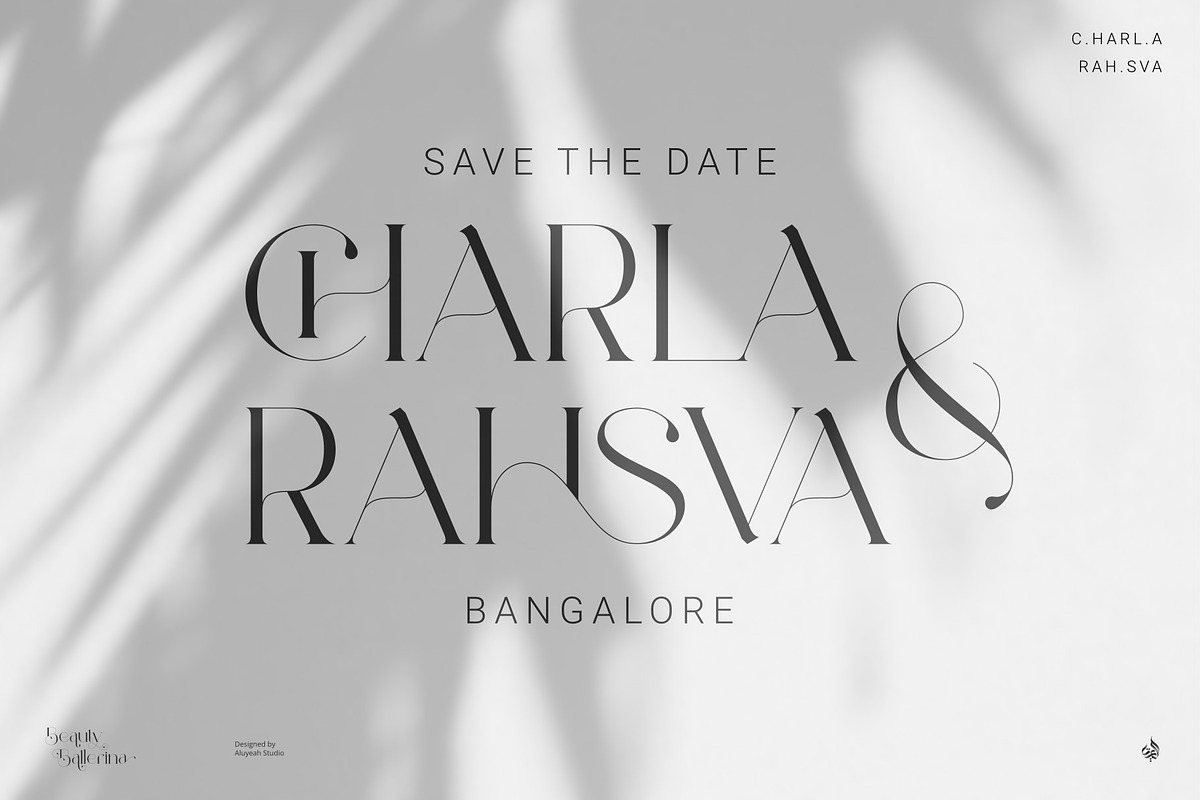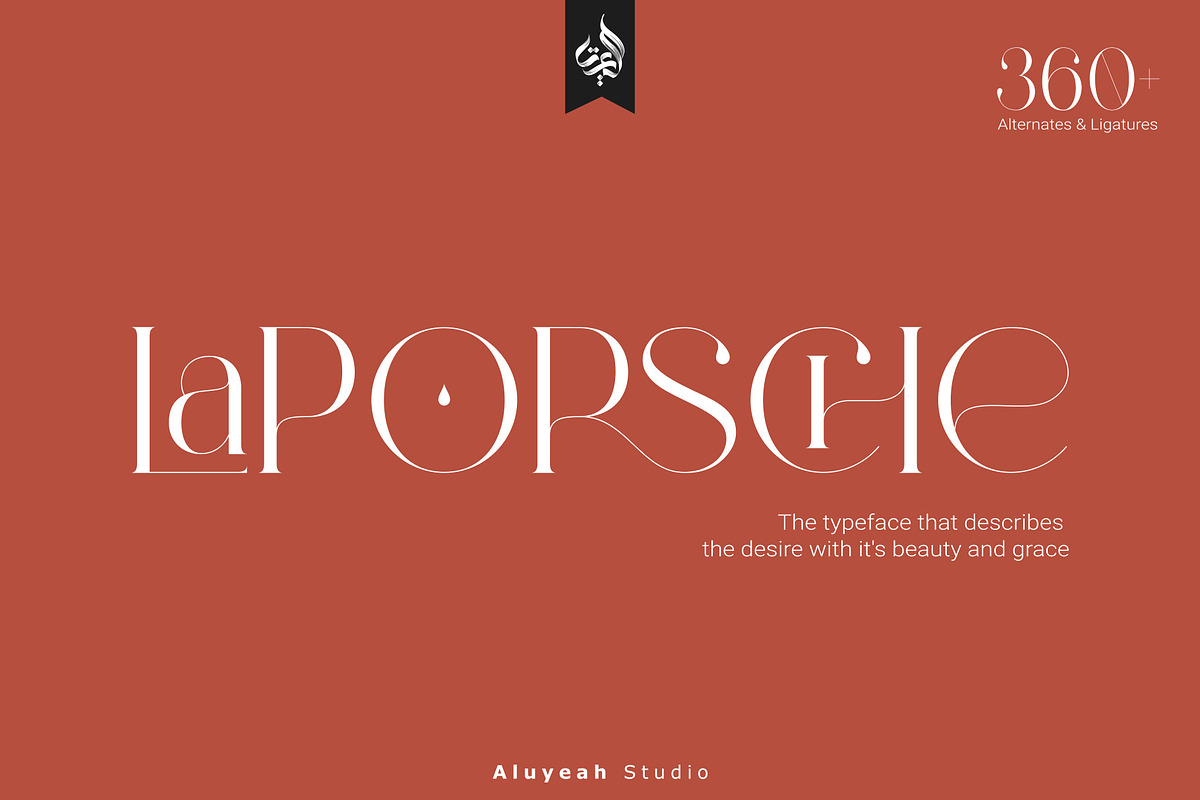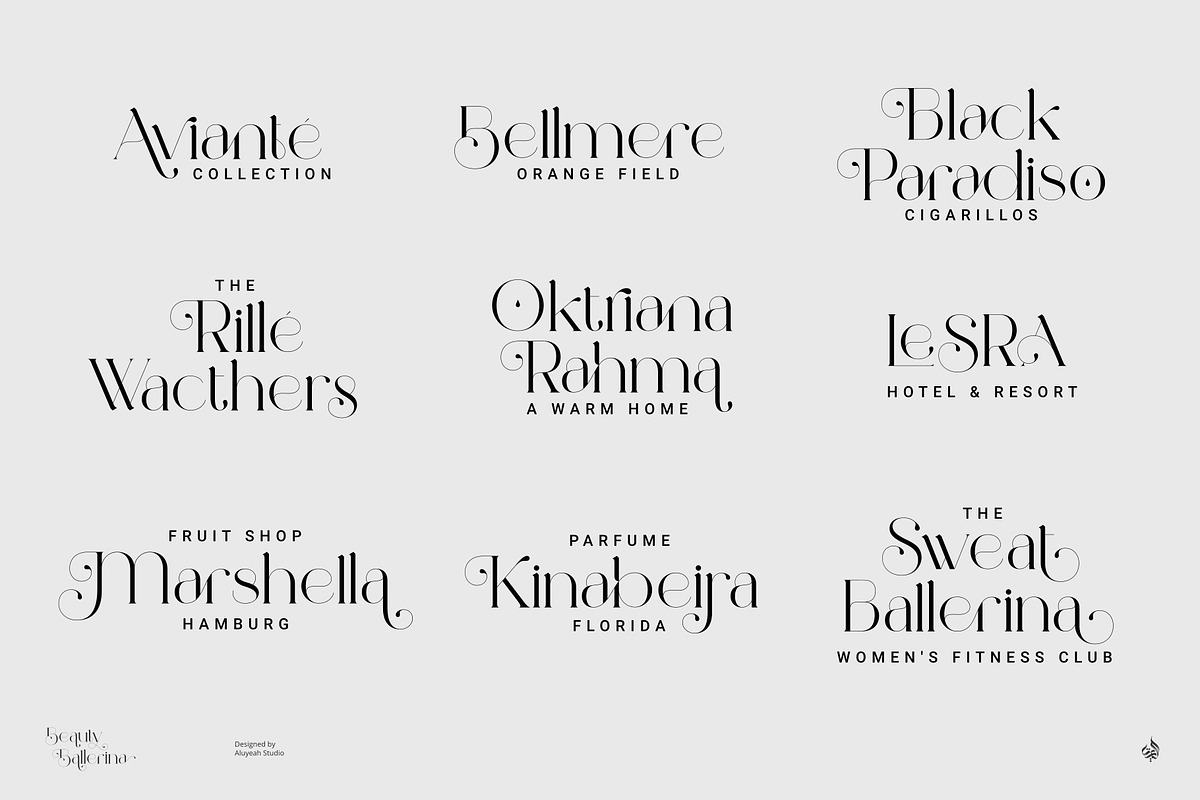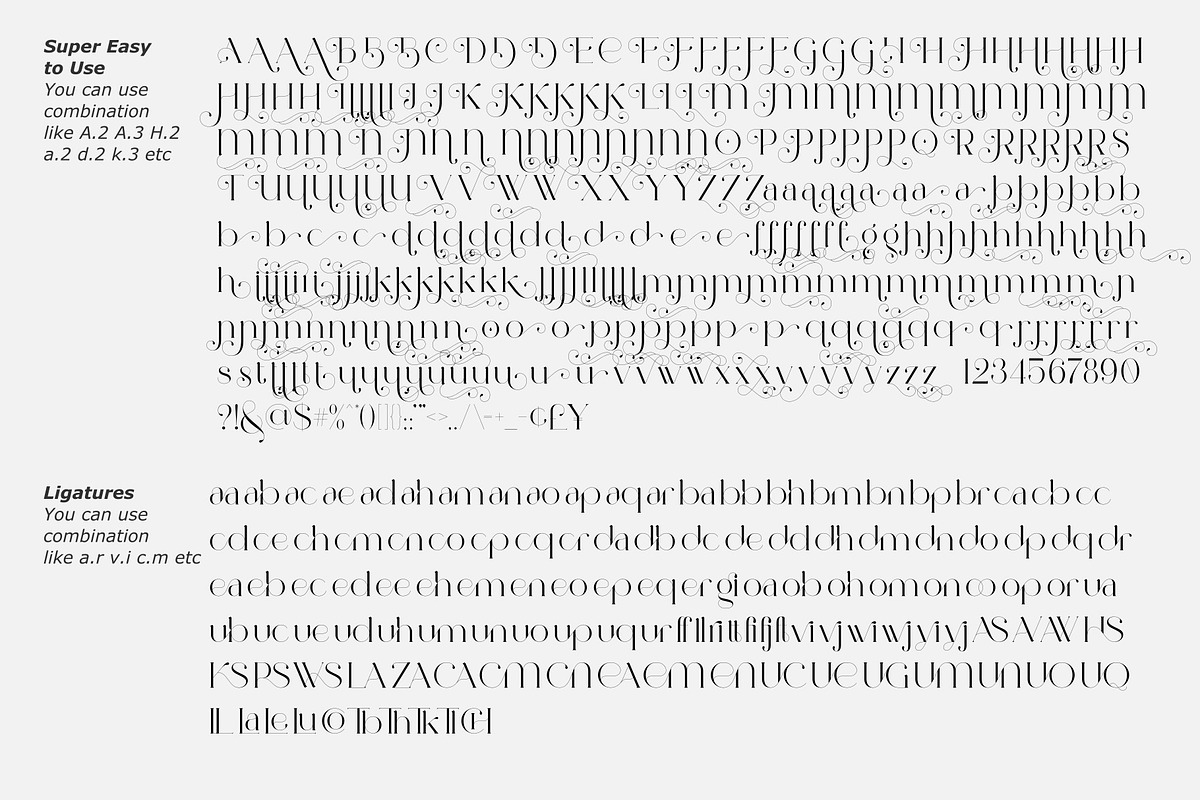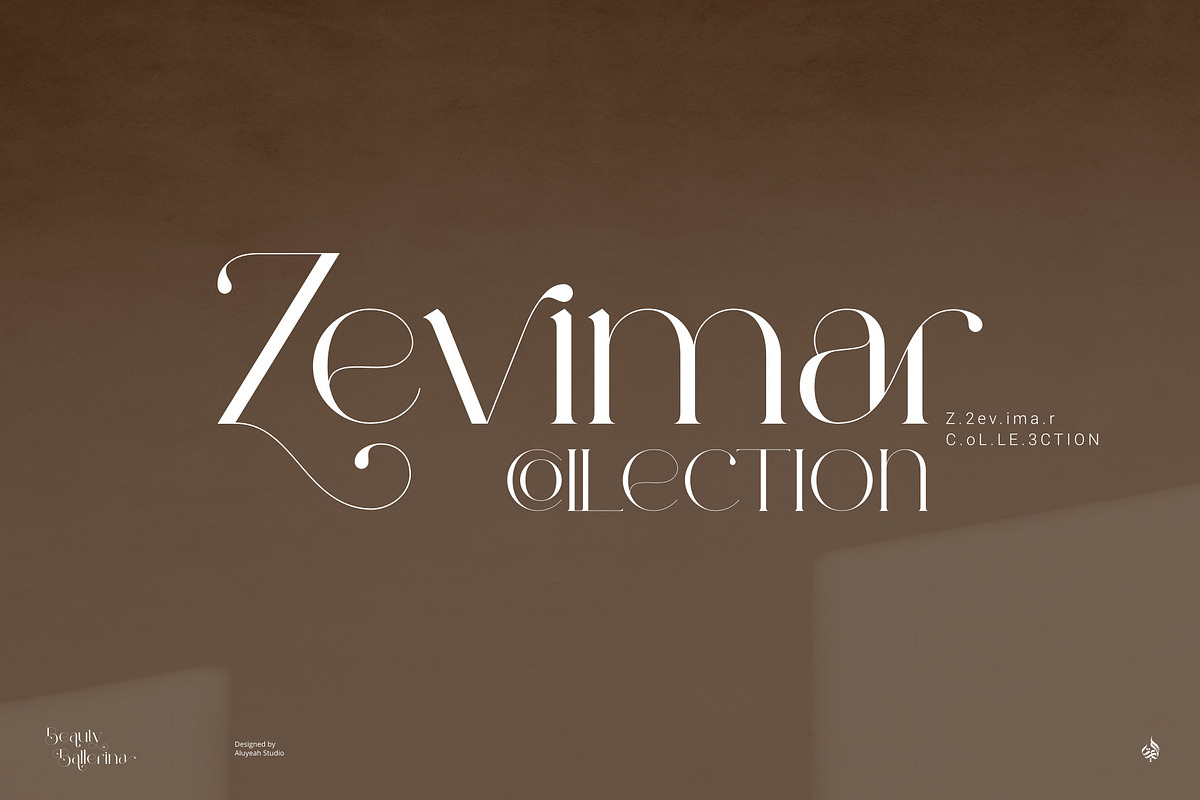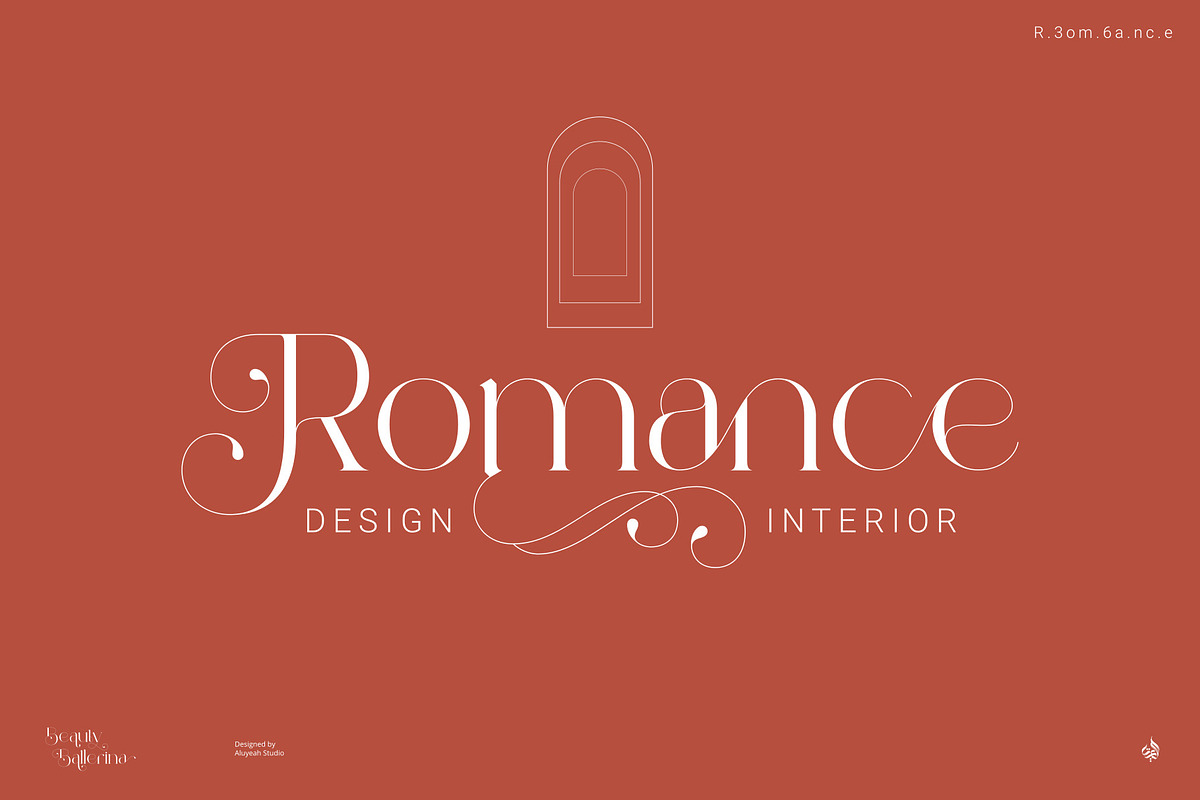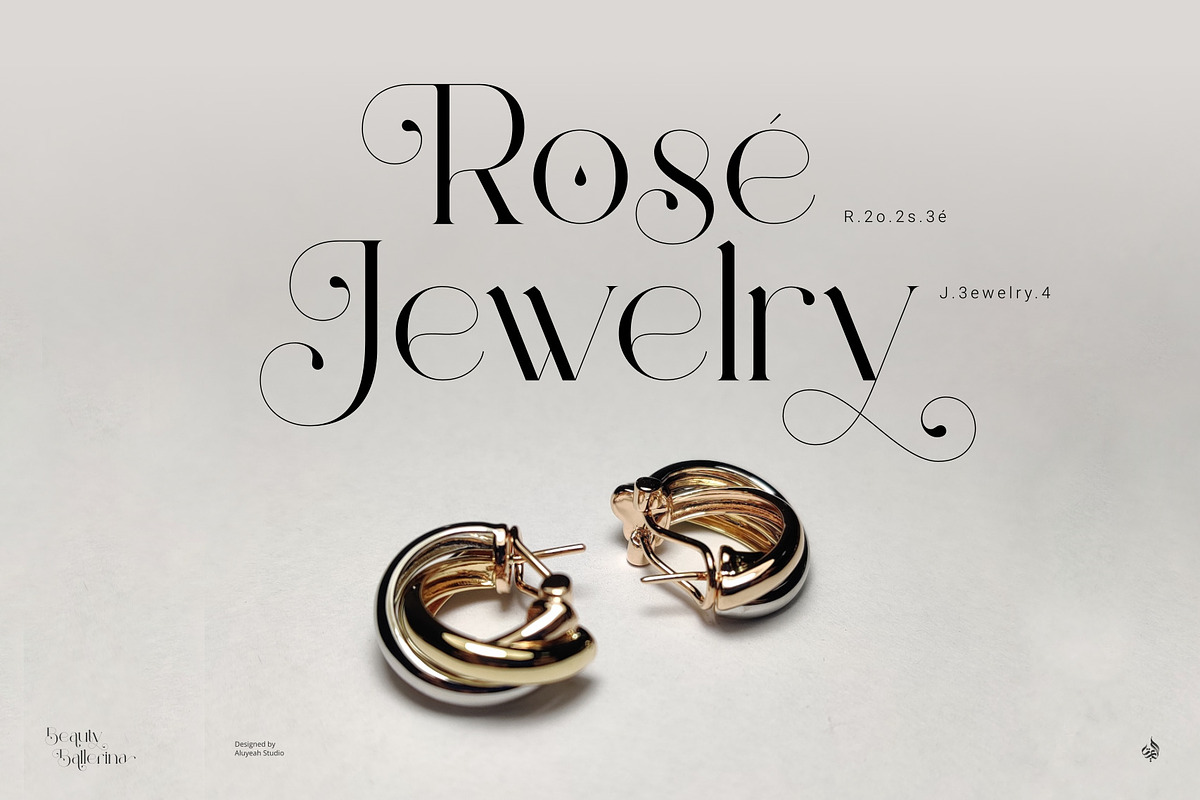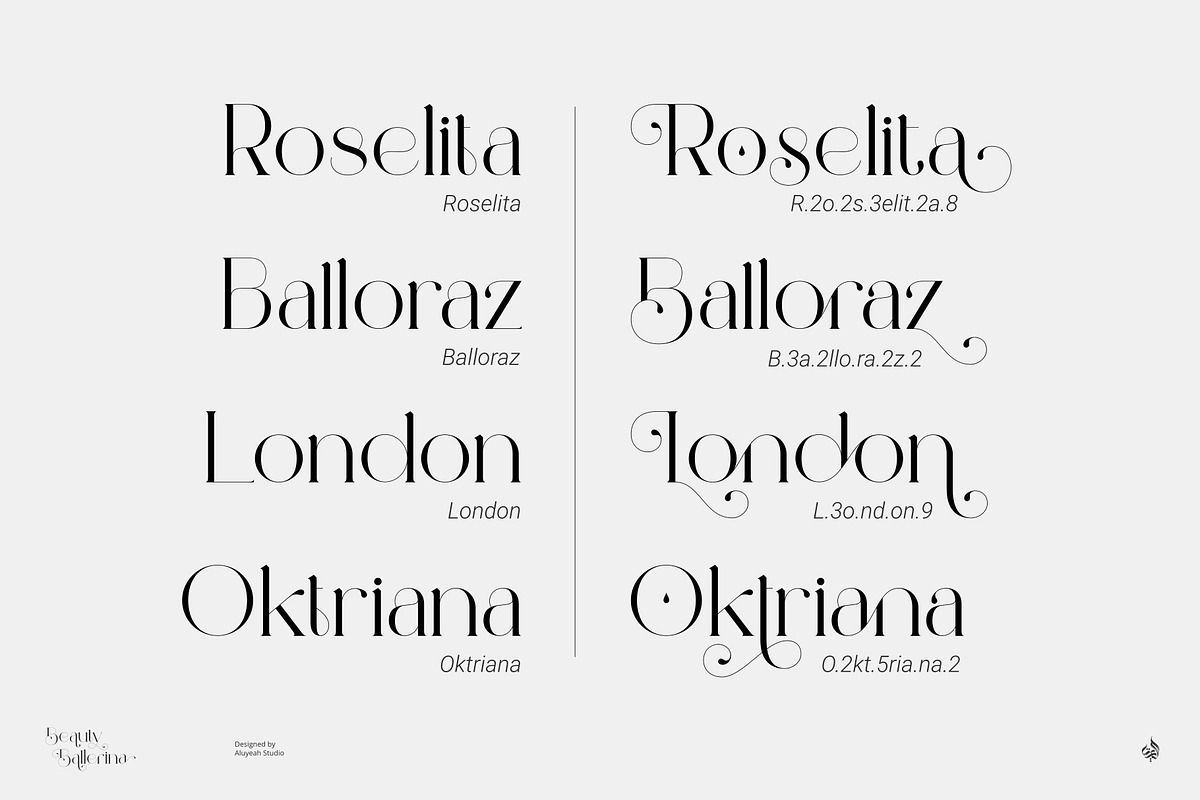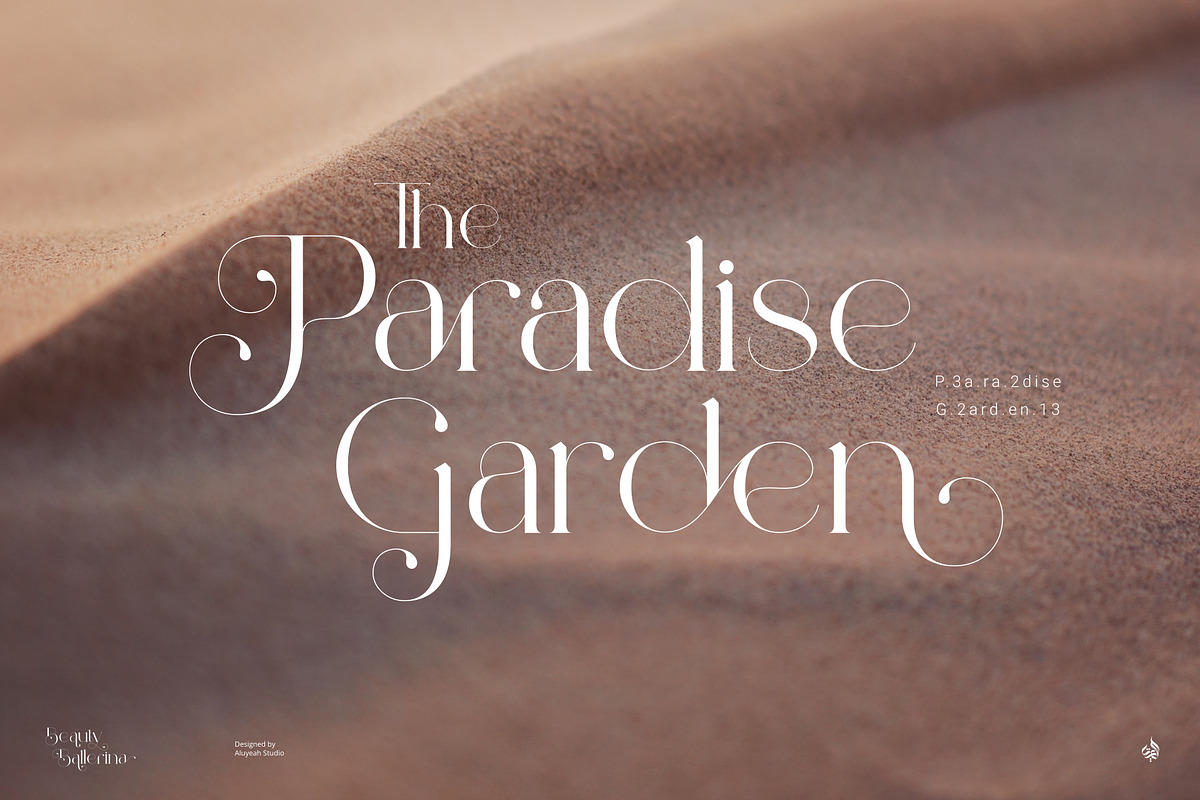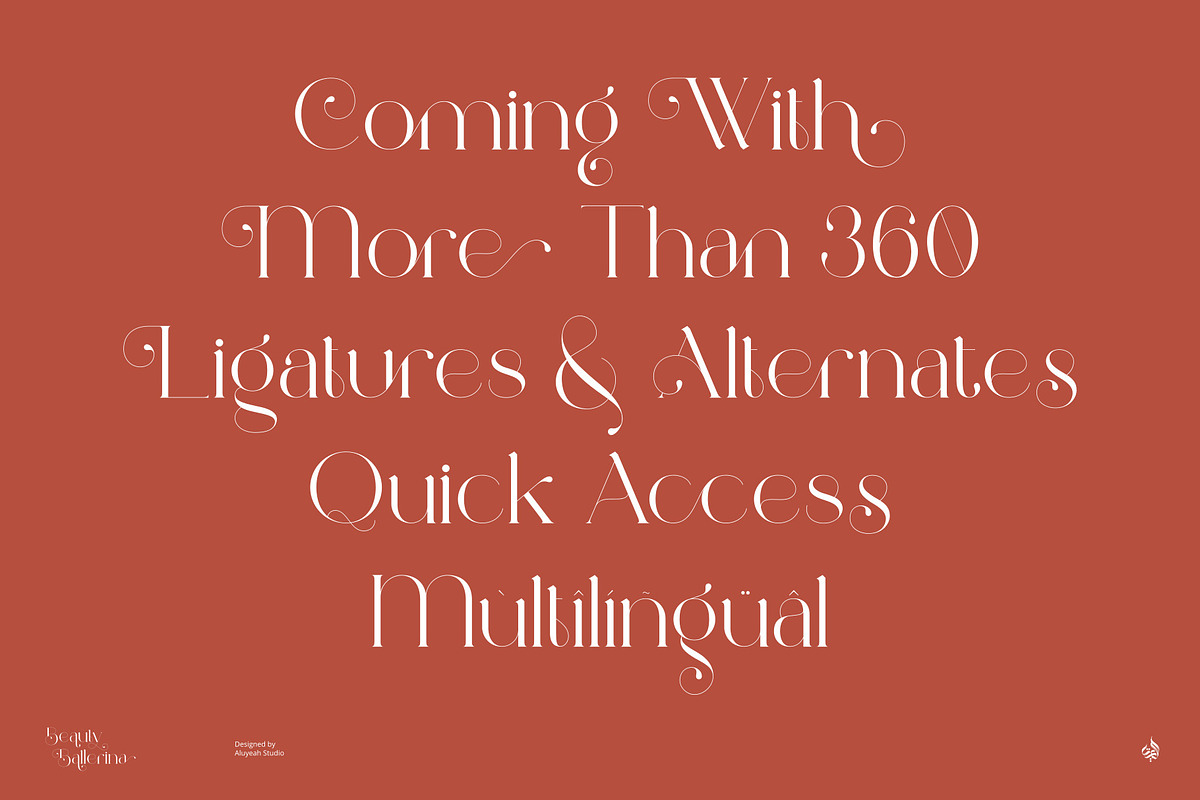
Beauty Ballerina
Introducing Beauty Ballerina, the top choice for those looking for a typeface that exudes beauty and grace. Every exquisite detail of this typeface mirrors the strength, passion, and elegance innate to each ballerina, making it an embodiment of the beauty and grace that ballet dancers exude.
Featuring an extensive collection of over 360+ quick-access ligatures and alternatives, it allows everyone to delve deeper into their imagination and reshape their creations with luxury. Rediscover the charm of regal elegance with every touch of Beauty Ballerina's captivating design.
- OpenType support
- Multilingual support (15 languages)
- Super Easy to Use alternates - You can easily call alternates using quick access combination like B.2 a.3 n.10 e.r etc.